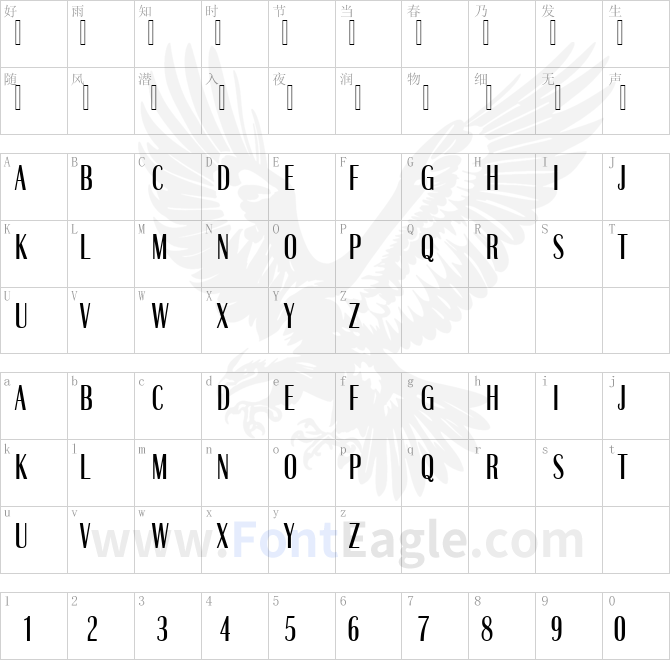
BritannicComDMed is a great font, widely used in graphic design, single-page menu design, poster design and other fields, and is deeply loved by designers.BritannicComDMed download.